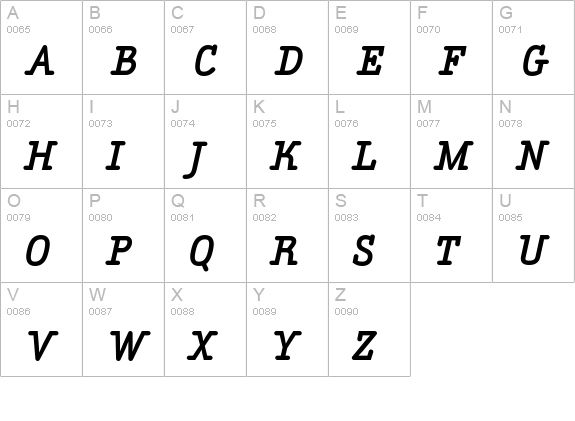
AmintaBoldItalic Font Details
AmintaBoldItalic is a stunning and elegant font that exudes sophistication and style. With its bold yet graceful italicized design, this font is perfect for adding a touch of luxury to your projects. The sleek curves and sharp angles of AmintaBoldItalic make it a versatile choice for a wide range of design applications, from logos to branding to print materials. The best part? AmintaBoldItalic is completely free to download at FontsMarket.com. This means you can enhance your designs with this beautiful font without breaking the bank. Whether you're working on a professional project or a personal creative endeavor, AmintaBoldItalic is sure to make a bold statement and leave a lasting impression. Download it today and elevate your design game with this exquisite font.